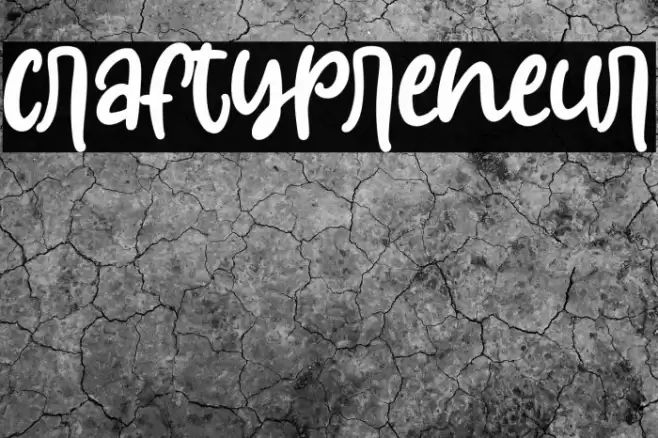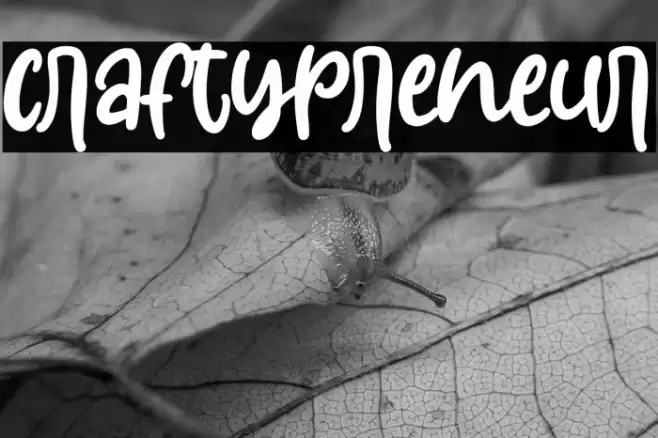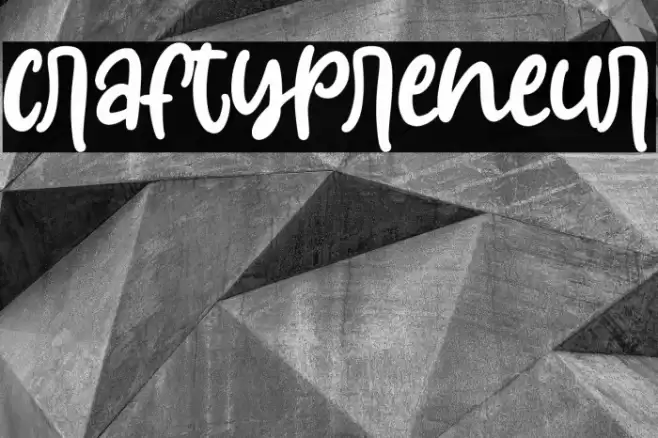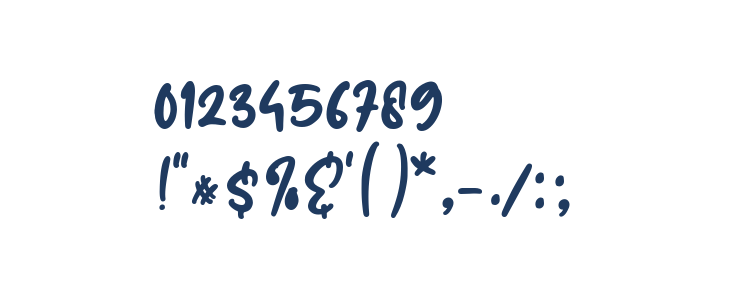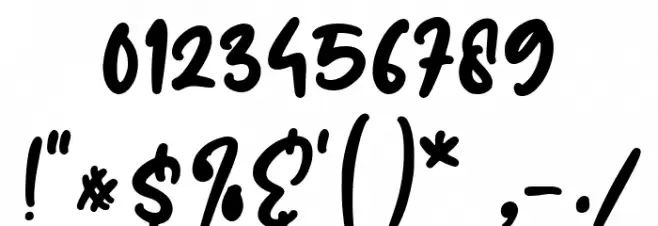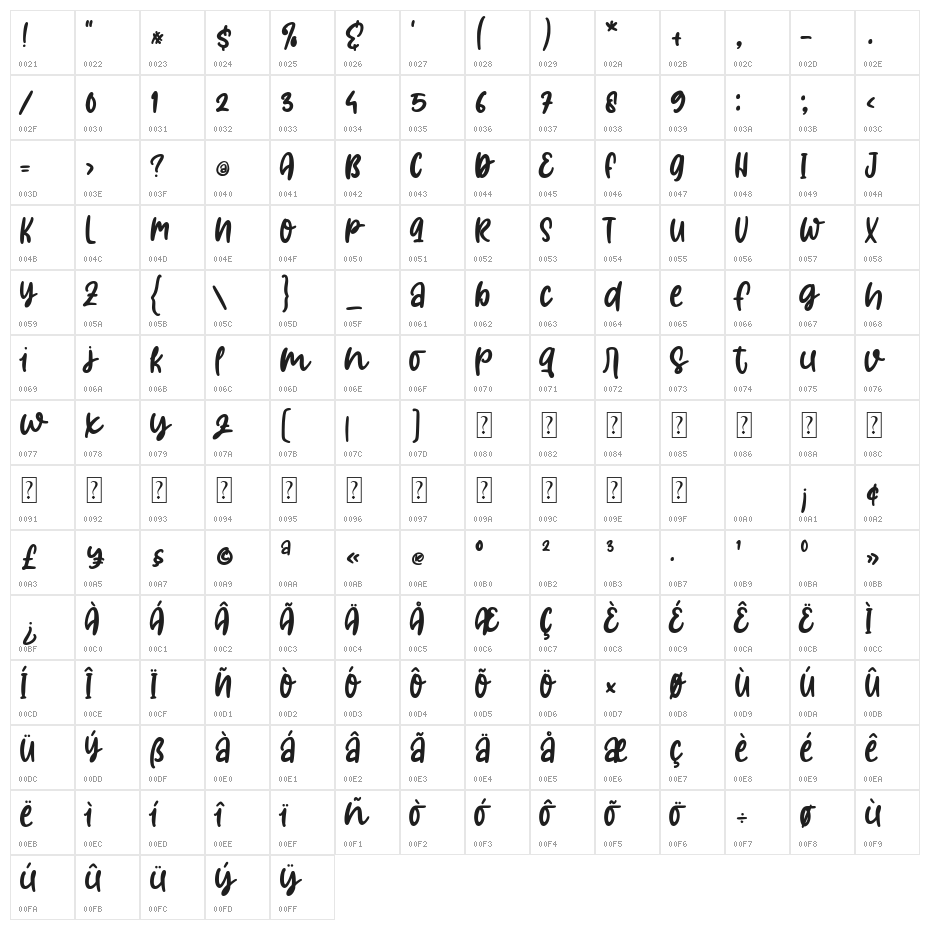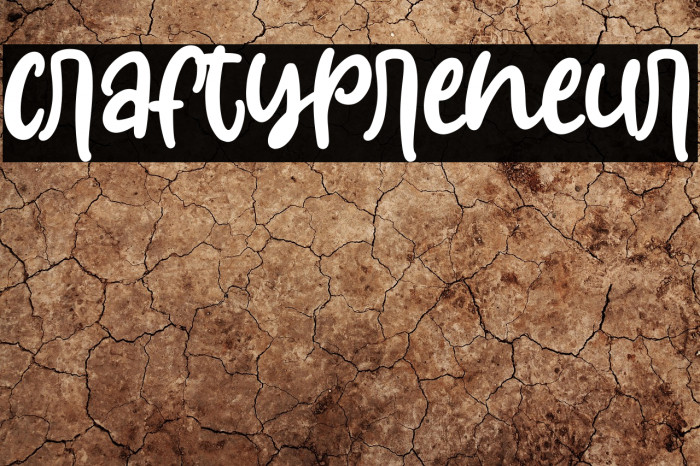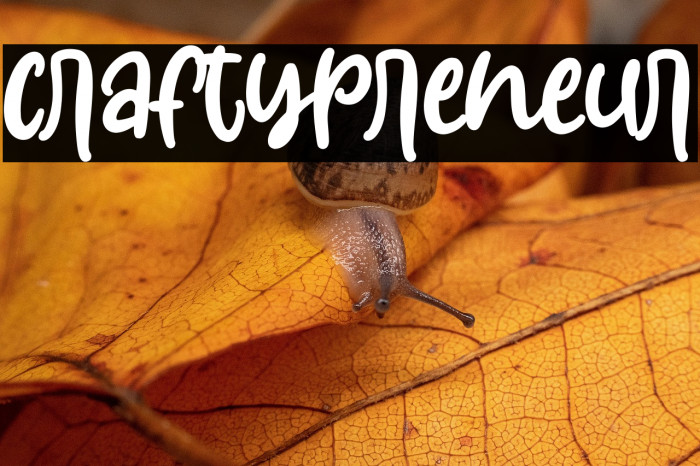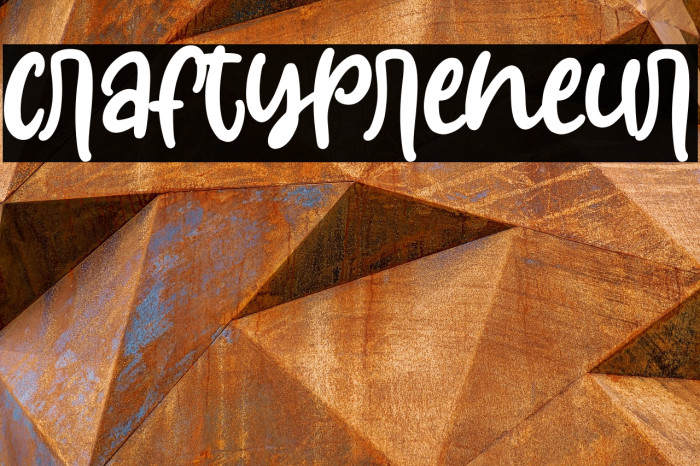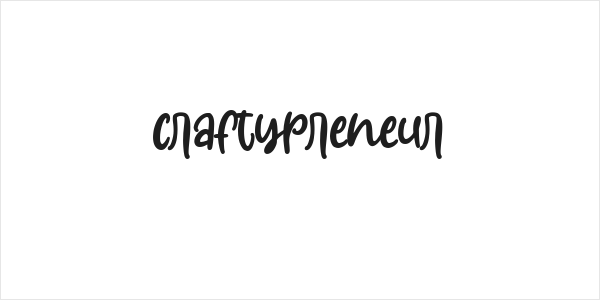
Craftypreneur Font
Craftypreneur Description
This font exudes a playful and energetic vibe with its bold, handwritten style. The characters are crafted with a fluid, brush-like stroke that gives them a dynamic and lively appearance. The uppercase and lowercase letters maintain a consistent flow, while the numbers and special characters complement the overall aesthetic. The font's informal and friendly nature makes it ideal for creative projects that require a personal touch.
A bold, handwritten font with a playful and energetic style from Regular fonts.
- Proposed Projects: Ideal for greeting cards, social media graphics, branding for creative businesses, and DIY project labels.
- Overall Style: Playful, Energetic
- Use Case: Logos, Headlines, Creative projects